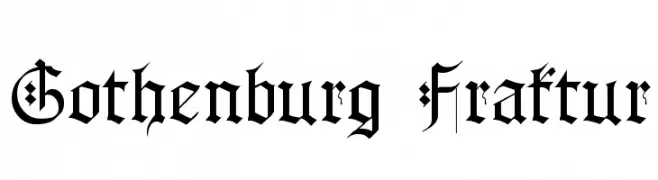
A bold, ornate Blackletter font with intricate details and a historical aesthetic.
A bold, ornate blackletter font with intricate details and a medieval aesthetic.
A bold, blackletter font with sharp, angular strokes and a Gothic aesthetic.
A traditional Blackletter font with ornate, angular letterforms.